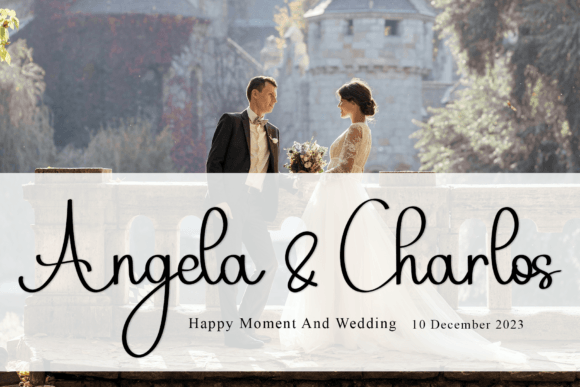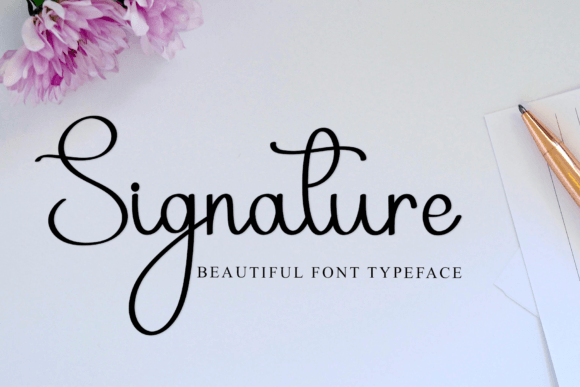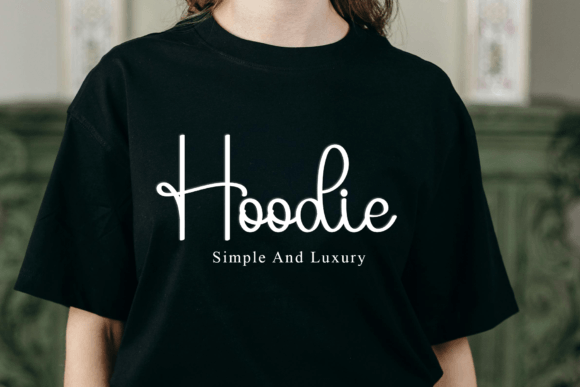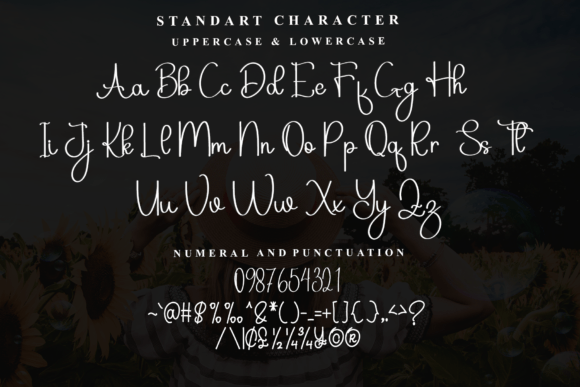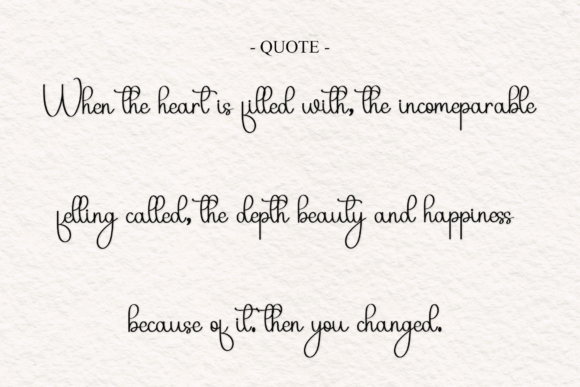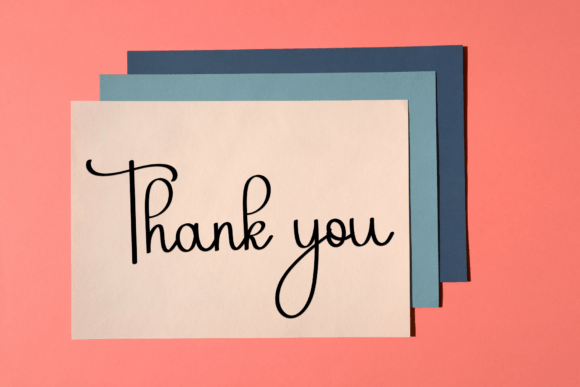
Introduction to Hello Baseball Font
Hello Baseball is a lovely and timeless handwritten font.
Key Features of Hello Baseball Font
Why Choose Hello Baseball Font?